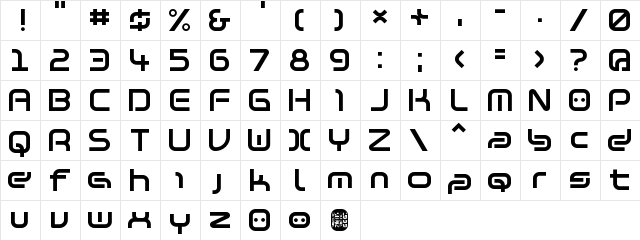
Warzone97 Regular
Design Context for Warzone97 Typeface
Warzone97 is a composed and adaptable typeface that performs quietly and consistently across a wide range of design contexts.
Pro Tip: Use Warzone97 in both headline and body roles to test its range before committing to a single application.